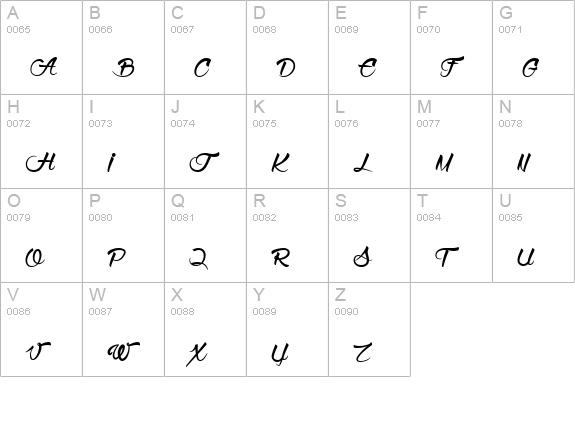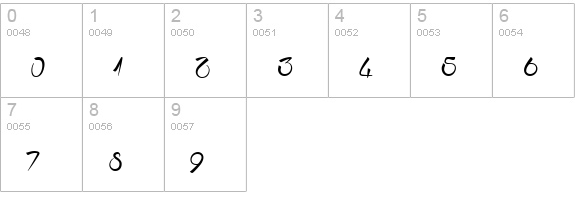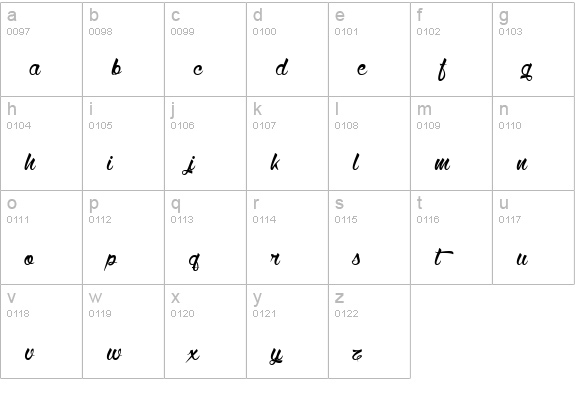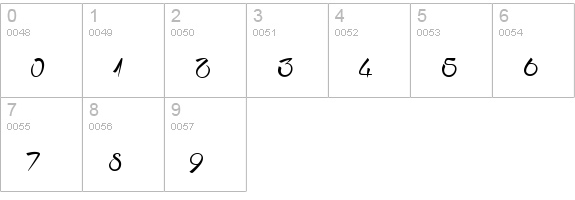
Wolf in the City Light Font Details
Wolf in the City Light is a refined, elegant variant in the Wolf typeface family \xE2\x80\x94 well suited to elegant body text, refined sub-headings, and luxury branding.
Introducing Wolf in the City Light, a stunning font that captures the essence of urban sophistication and untamed elegance. This typeface combines the fierce spirit of a wolf with the sleekness of a modern cityscape, resulting in a truly captivating design that is sure to make a bold statement. With its clean lines and delicate curves, Wolf in the City Light exudes a sense of refined power and grace. Each letter is meticulously crafted to embody the strength and resilience of a wolf, while maintaining a sense of elegance and grace that is reminiscent of a bustling cityscape at night. This font is perfect for a variety of design projects, from fashion magazines and branding materials to website headers and social media posts. Its versatility makes it ideal for both print and digital applications, allowing you to effortlessly elevate your designs to new heights. Not only does Wolf in the City Light offer exceptional aesthetics, but it is also freely available to download at FontsMarket.com. This means that you can access this remarkable font without any restrictions, allowing you to unleash your creativity and bring your ideas to life without any limitations. Whether you're a professional designer looking to add a touch of sophistication to your creations or an aspiring artist seeking to make a statement, Wolf in the City Light is the perfect font to set you free. Its unique blend of strength and elegance will captivate your audience and leave a lasting impression. So, why wait? Download Wolf in the City Light from FontsMarket.com today and embrace the freedom to create stunning designs that reflect your unique style and vision. Unleash the power of the wolf and the allure of the city with this remarkable font.